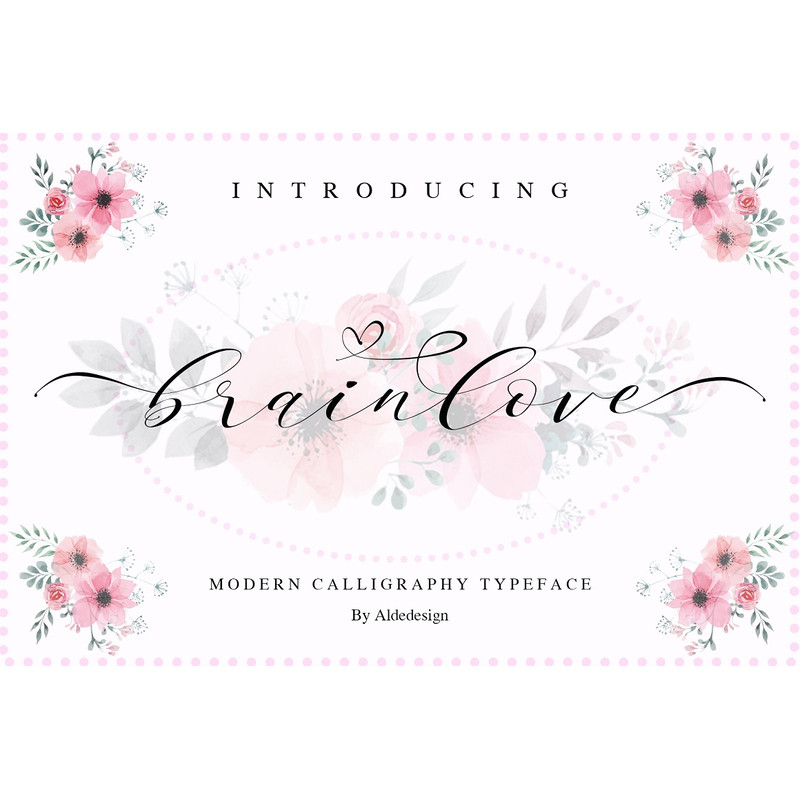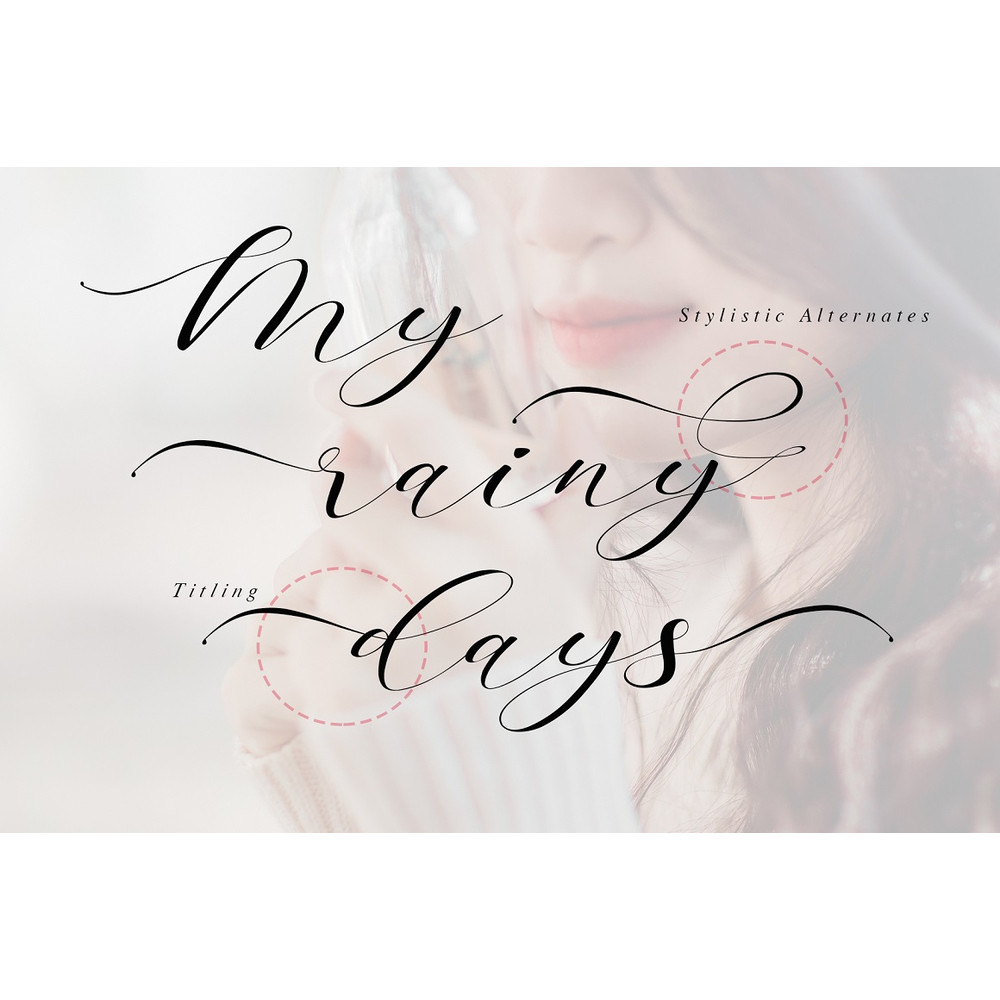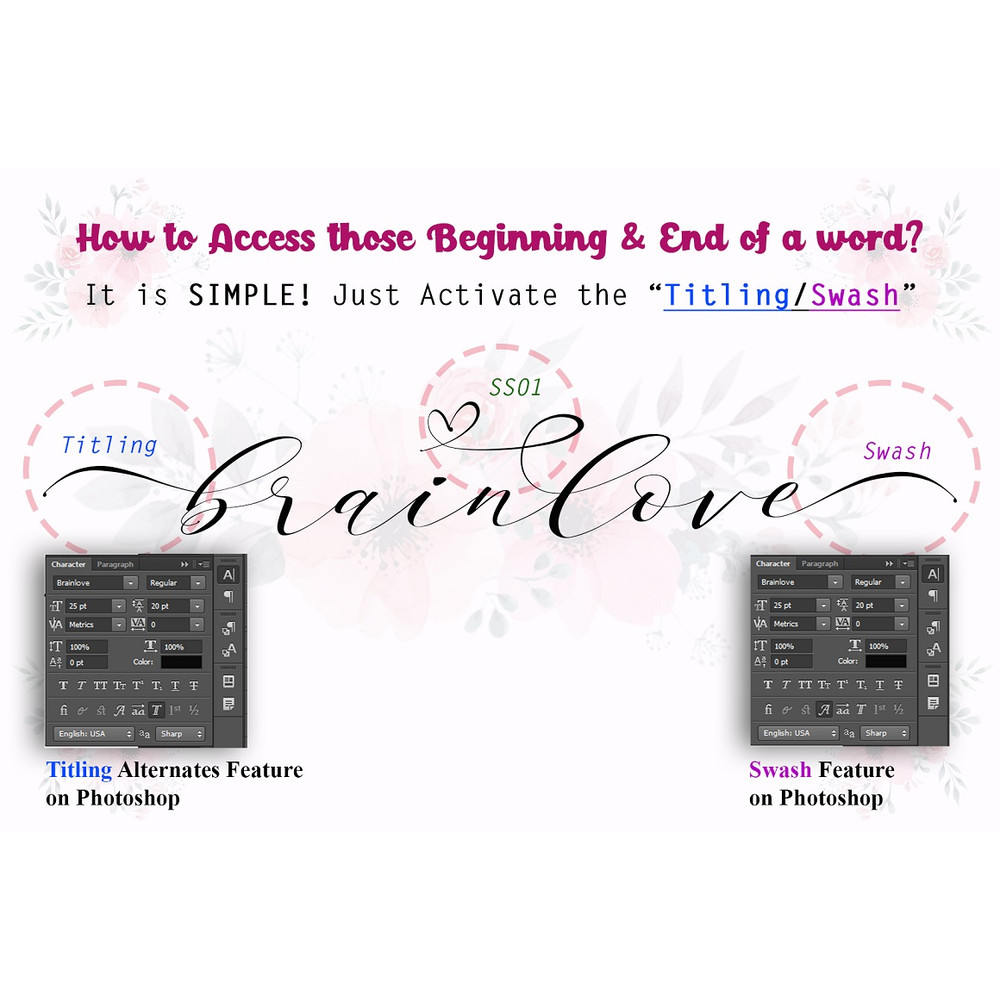
Brainlove Beautiful Script is a stylish calligraphy font that features a varying baseline, smooth line, classic and elegant touch.
For those of you who are need a touch of elegance and modernity for your designs or branding, it can be used for various purposes such as headings, signature, logos, wedding invitation, t-shirt, letterhead, signage, lable, news, posters, badges etc.